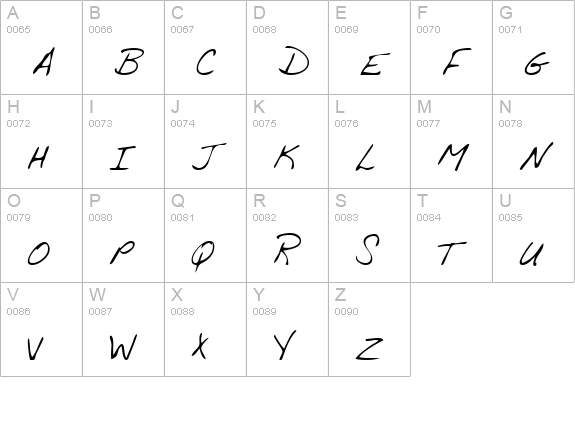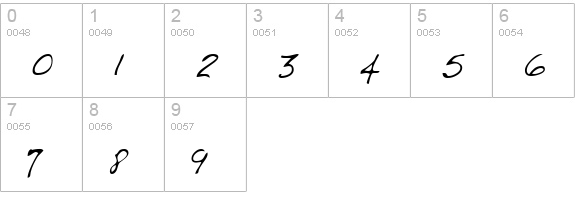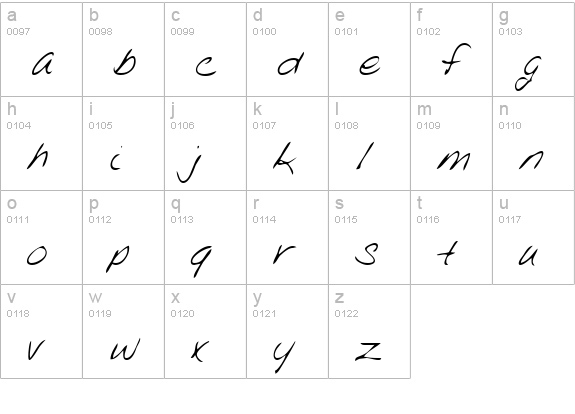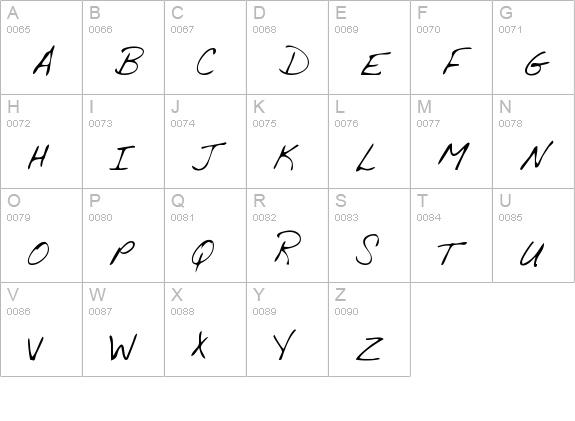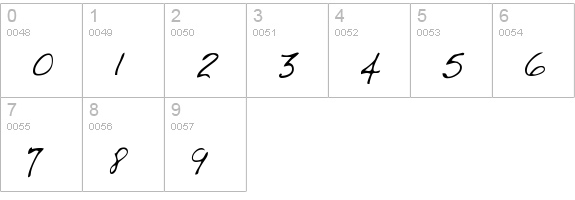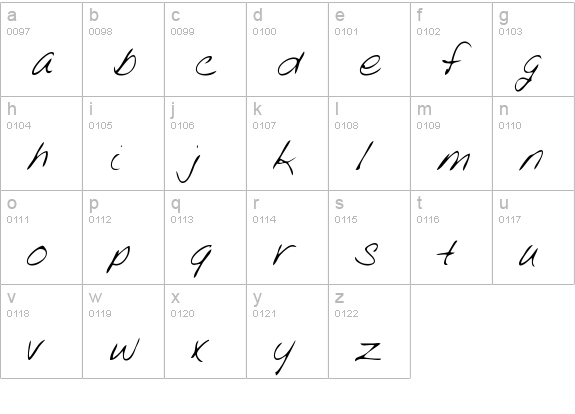
LydiasHand Regular is the standard, neutral variant in the LydiasHand typeface family \xE2\x80\x94 well suited to general body text, paragraphs, and standard typographic work.
LydiasHand Regular is a charming and elegant handwritten font that brings a touch of personal flair to any design project. With its smooth lines and flowing strokes, this font exudes a sense of warmth and creativity. Perfect for adding a personal touch to invitations, cards, logos, and more, LydiasHand Regular is versatile and eye-catching. The best part? LydiasHand Regular is available for free download at FontsMarket.com. This means you can easily access this beautiful font and use it in your projects without any cost. Whether you are a designer, a student, or anyone looking to add a unique touch to your creations, LydiasHand Regular is a fantastic choice. Download it now and elevate your designs with this lovely handwritten font.